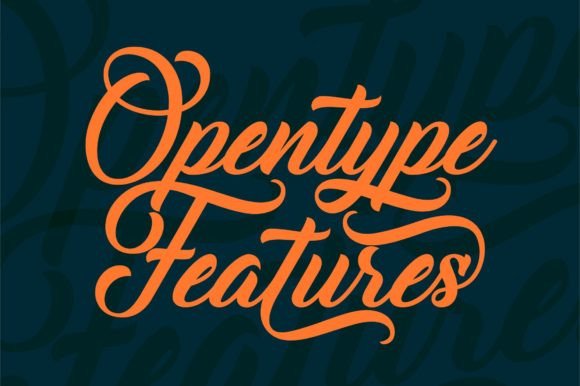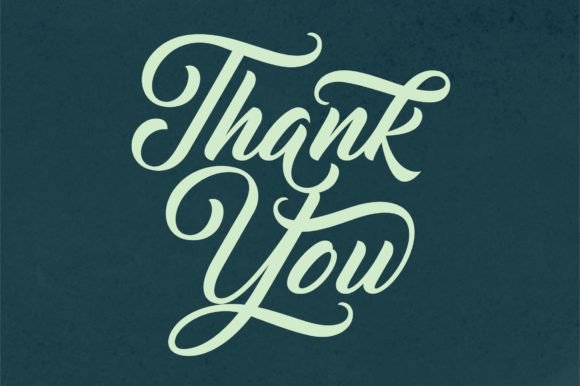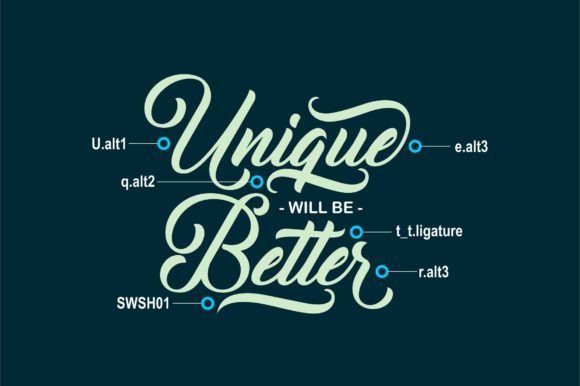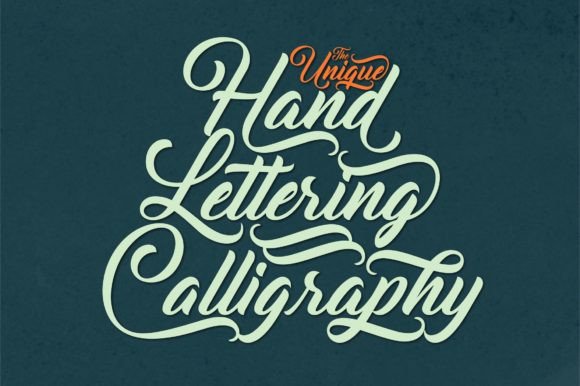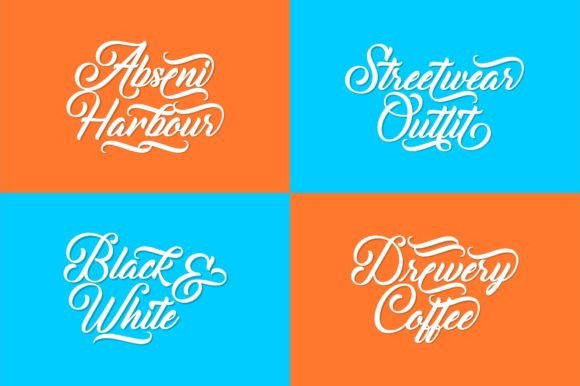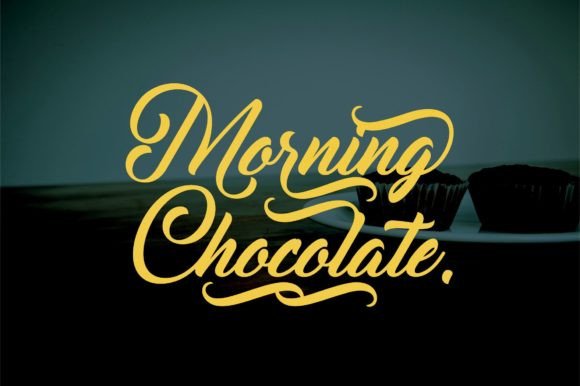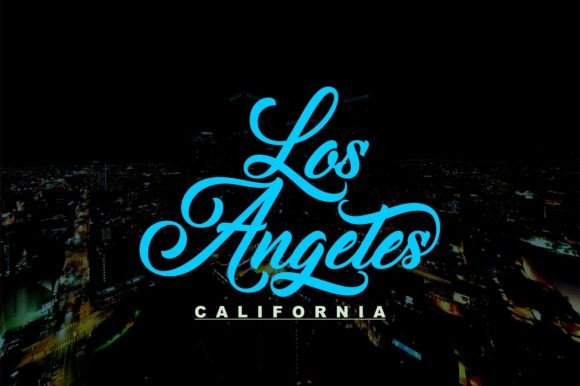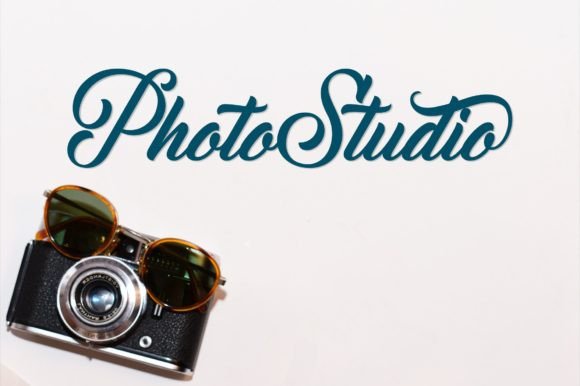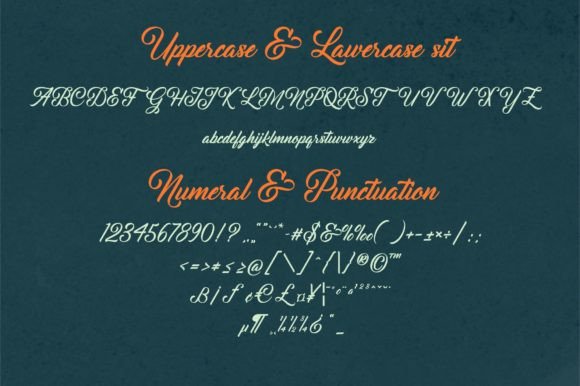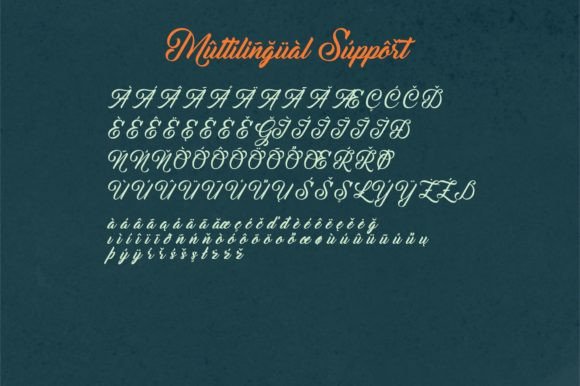
Unique Font
About Unique Font
“Unique” is a stylish, vintage-style script font that brings a sense of nostalgia to your design projects. This versatile script font has a wide range of applications, making it suitable for projects that require a touch of vintage charm, such as greeting cards, headlines, and more.
The charm of “Unique” lies in its stylish and vintage-inspired script. Its well-crafted characters create a visually captivating and nostalgic experience, making it an ideal choice for projects that aim to convey a sense of uniqueness, nostalgia, and retro style.
One of the standout qualities of “Unique” is its adaptability. Whether you’re using it to design timeless greeting cards or create attention-grabbing headlines with a vintage twist, this font seamlessly integrates into your creative vision.
This font’s dedication to providing a stylish and nostalgic look to your projects sets it apart. Whether you’re working on personal or professional endeavors, “Unique” brings a sense of uniqueness and vintage charm to your work that resonates with a diverse audience.
In summary, “Unique” is more than just a font; it’s a stylish and versatile creative tool that can infuse your designs with a touch of nostalgia and uniqueness. Whether you’re a professional designer seeking a font that adds retro flair to your projects or an enthusiast passionate about crafting and design, “Unique” is here to enhance your creative endeavors with its vintage-style script. Embrace the nostalgia of “Unique,” and watch your creativity flourish with stylish and retro-inspired designs.